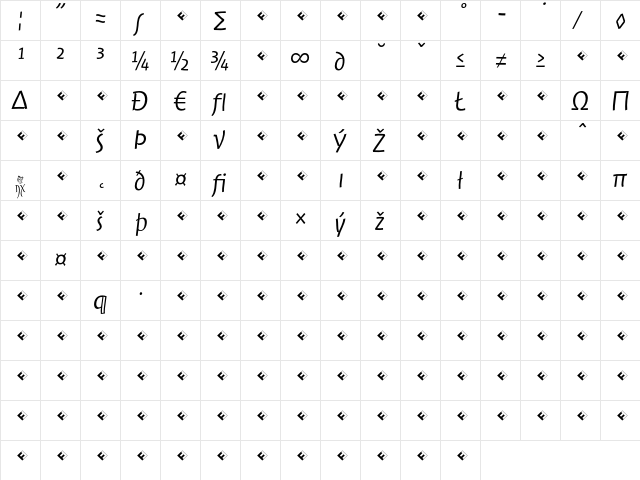
JambonoTF-LightExpert Regular
Design Context for JambonoTF-LightExpert Typeface
JambonoTF-LightExpert offers clean, dependable letterforms without strong stylistic allegiance, making it a practical choice for designers who need flexibility. Its slender proportions lend an understated elegance to any composition.